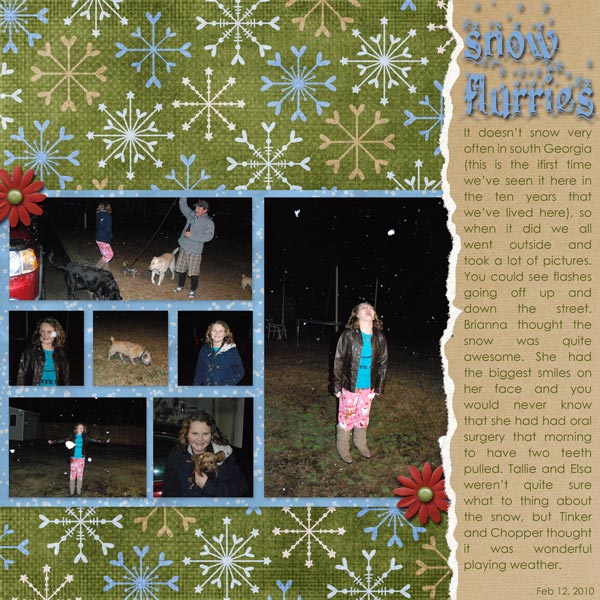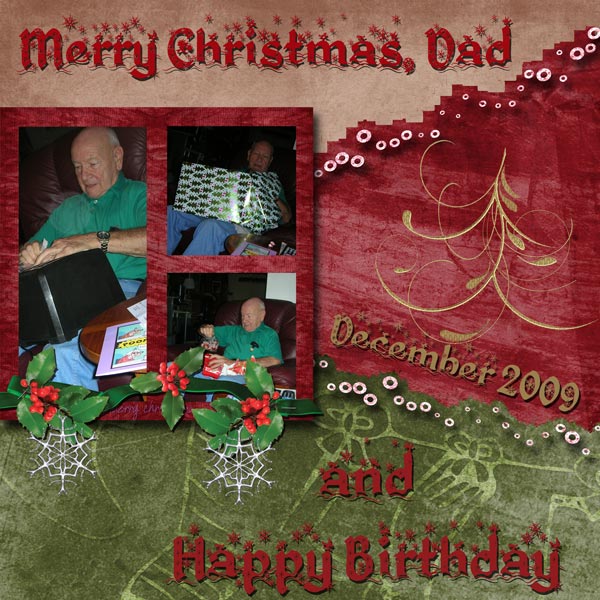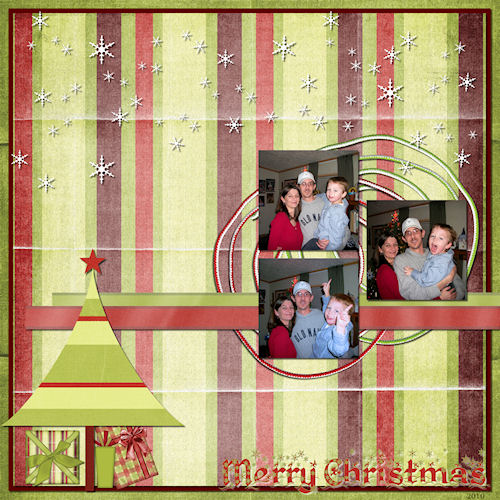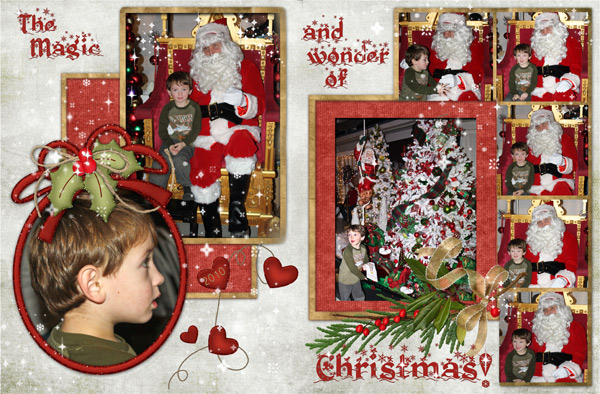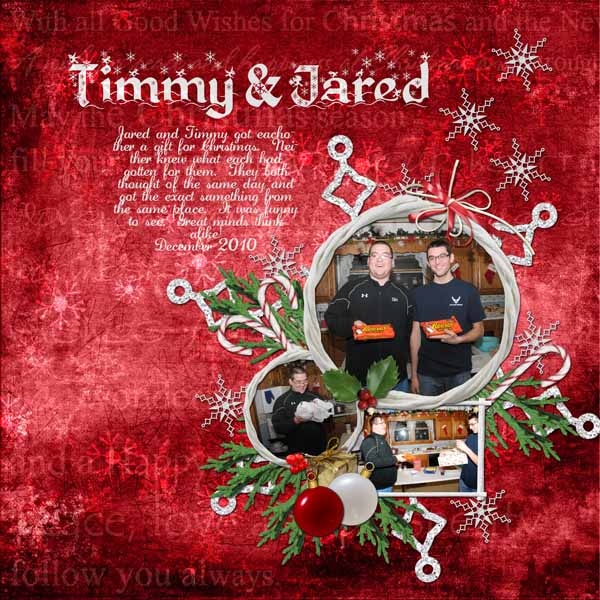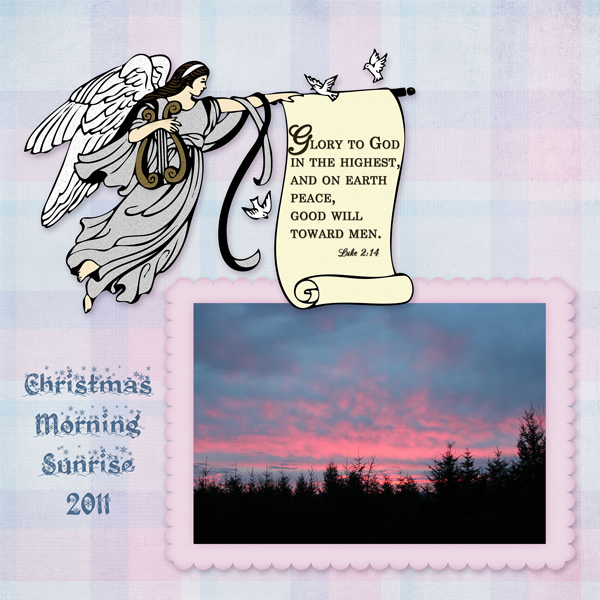
4. Kingthings Christmas
We have never done a holiday font here at My Corner Online. I like this one as it is versatile and would work well with snow photos also. Download at Dafont.com